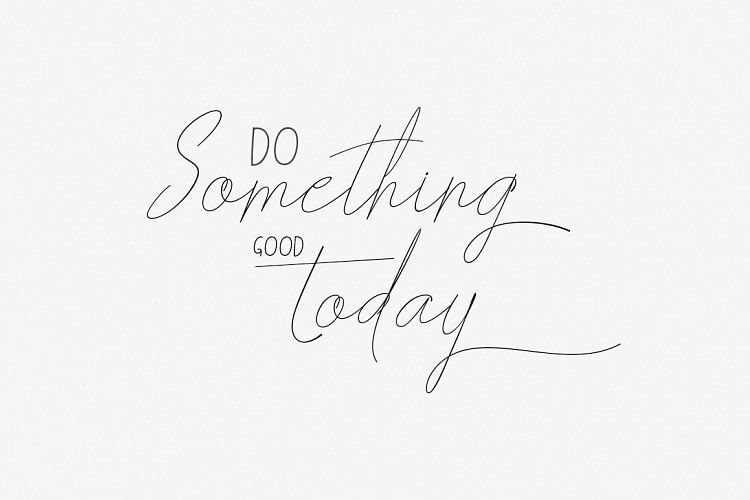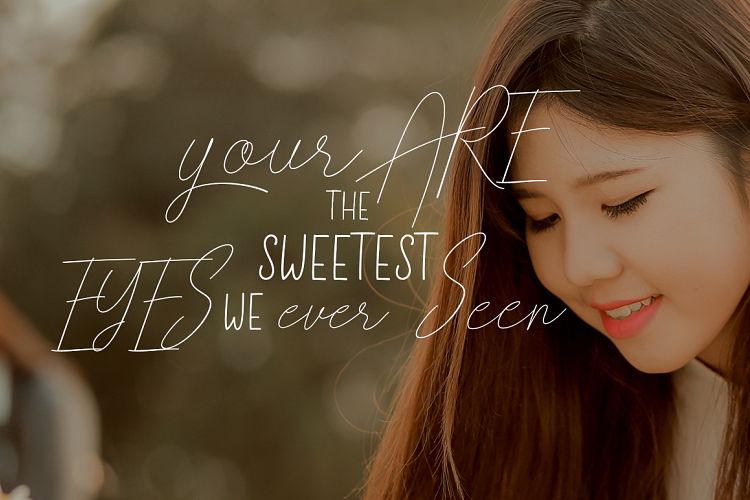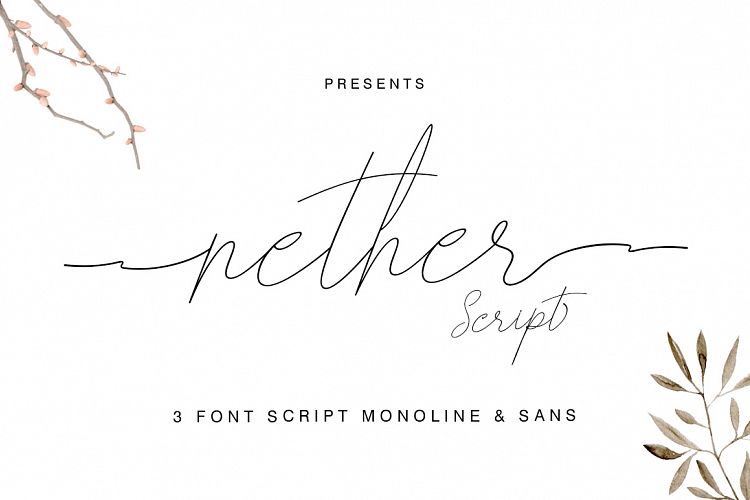
Nether Script
Nether Script Font
Nether Font Trio has 3 types of fonts with different character. Having one type of monoline sans serif style to complement the combination of all three of those fonts. The Fonts can be used for various purposes. such as titles, signatures, logos, t-shirts, letterheads, signage, labels, newsletters, posters, badges, wedding invitations such as greeting cards, branding material, business cards, quote, posters, and more!